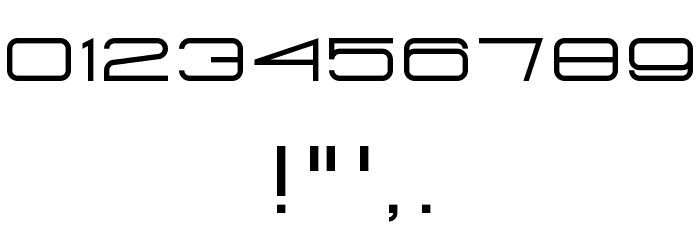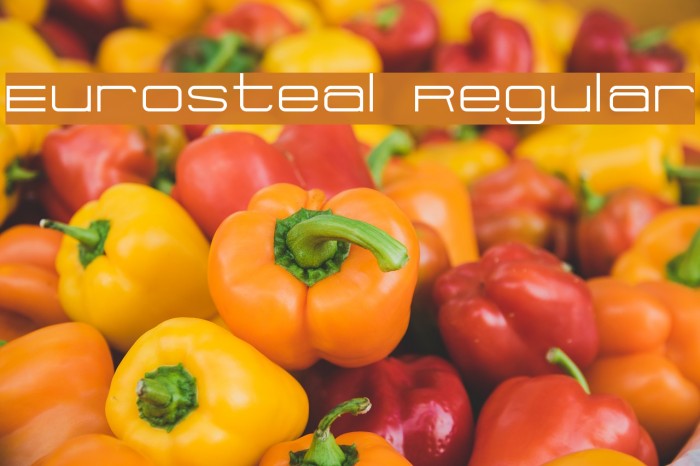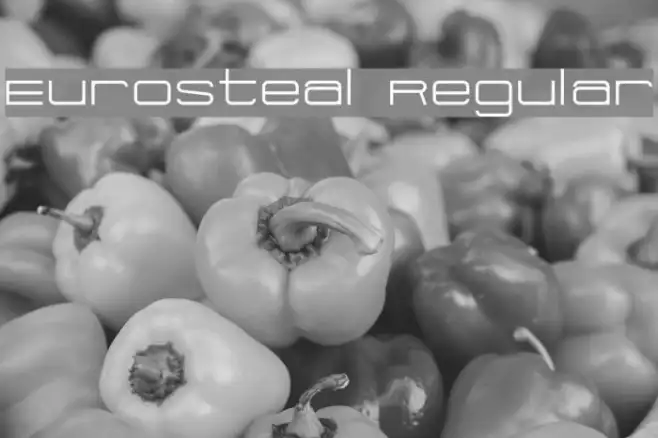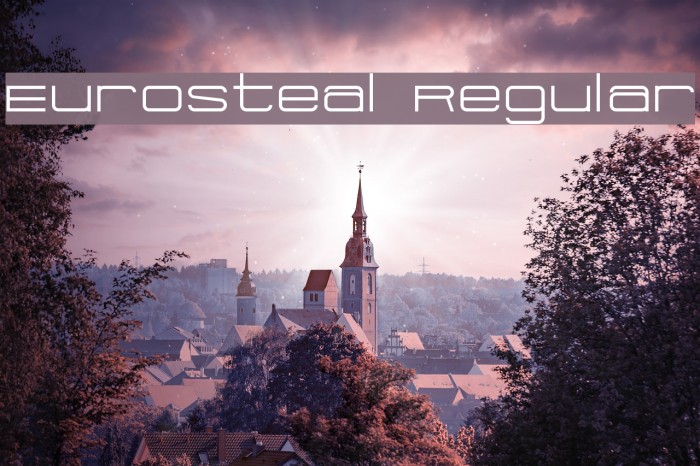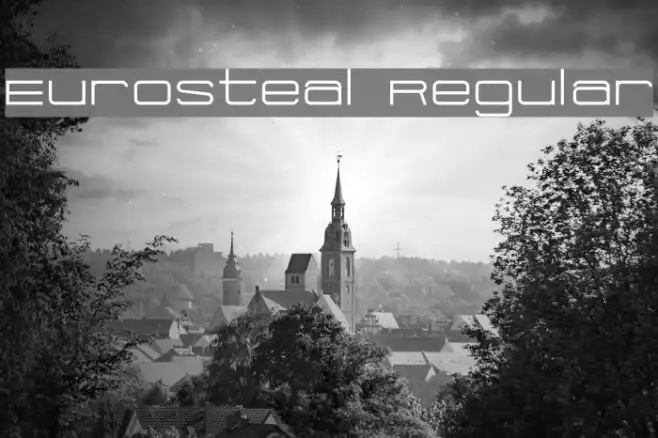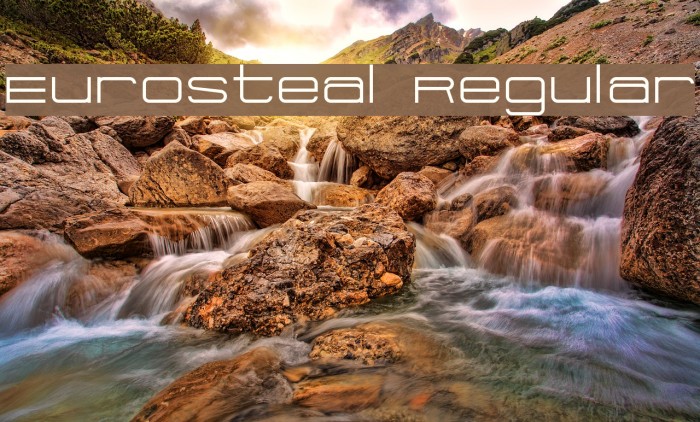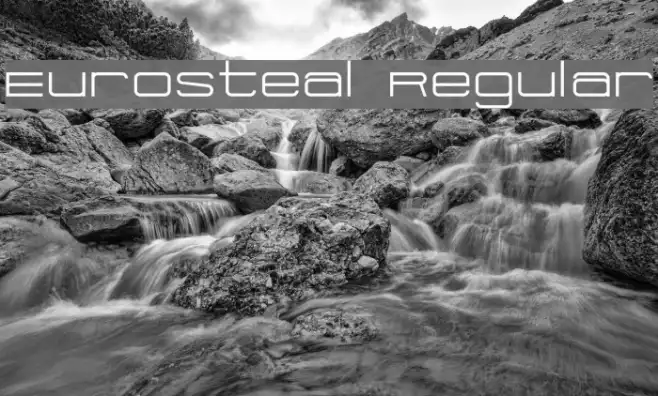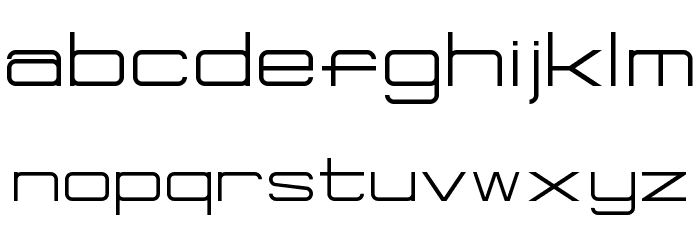
Eurosteal Regular Font
This font features a sleek, modern design with a geometric and futuristic aesthetic. The characters are constructed with clean, straight lines and rounded edges, giving it a streamlined appearance. Uppercase and lowercase letters maintain a consistent height, contributing to a uniform look. The numerals and special characters are designed to match the overall style, with a focus on clarity and simplicity. This font is ideal for projects that require a contemporary and technical feel, such as technology branding, digital interfaces, and modern advertising.
A sleek, modern font with a geometric and futuristic design.
• Proposed Projects: Ideal for technology branding, digital interfaces, modern advertising, and futuristic design projects.